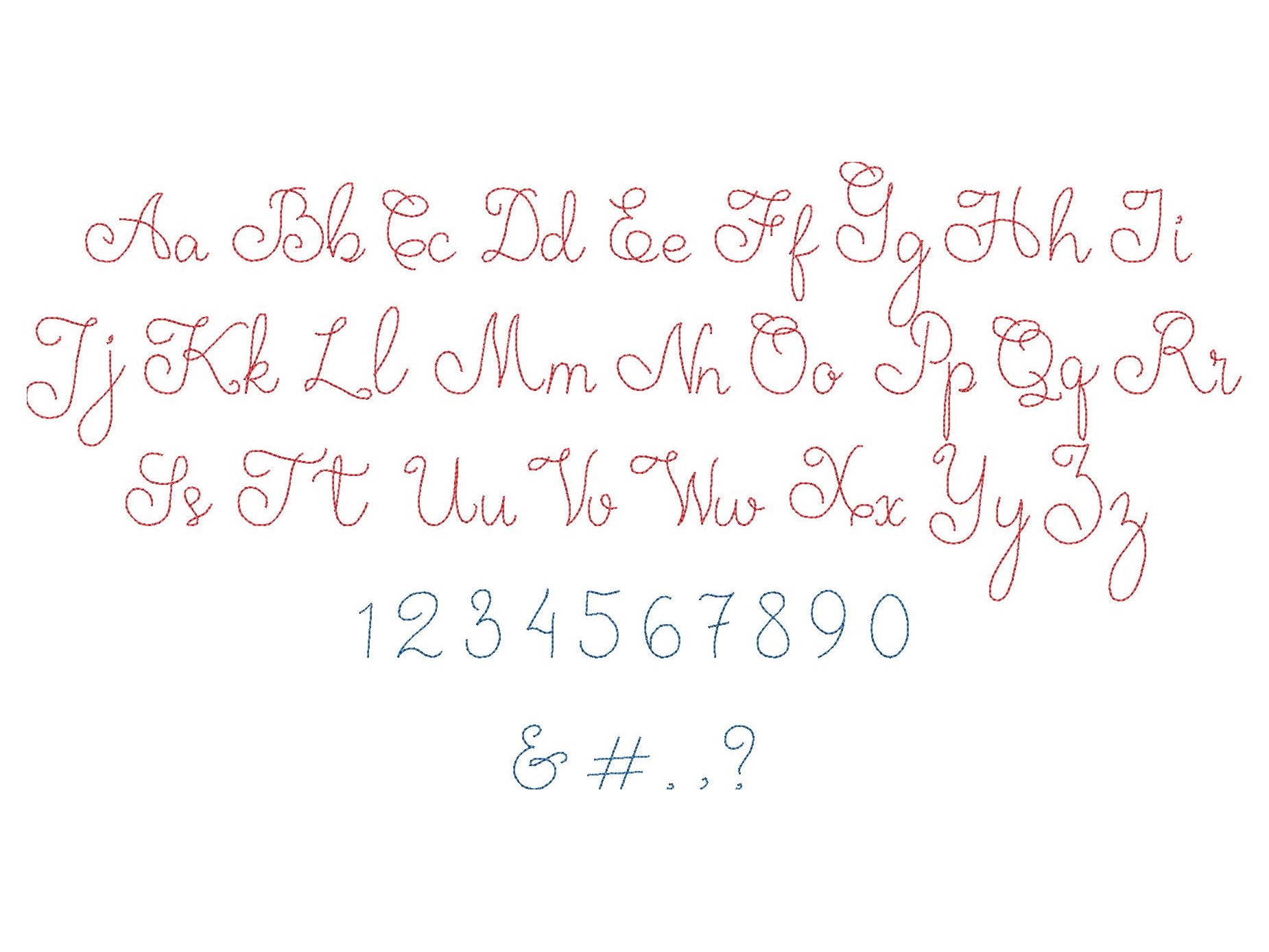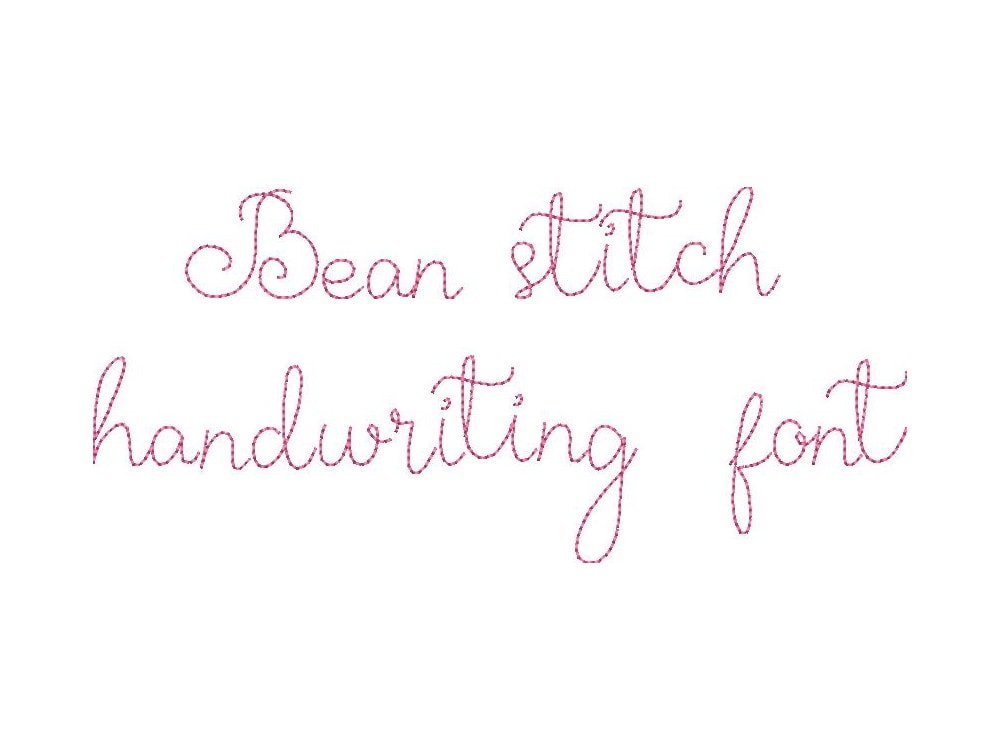
Handwriting Font, mini micro alphabet letters, line bean stitch, machine embroidery designs in assorted sizes, uppercase and lowercase, BX included
Whole alphabet A-Z, uppercase letters, lowercase letters and punctuation marks & # . , ?
Stitched out perfect on what I needed it for!
The S in this set looks like a T and was not usable for a sympathy card. Had to purchase another set in order to be readable.